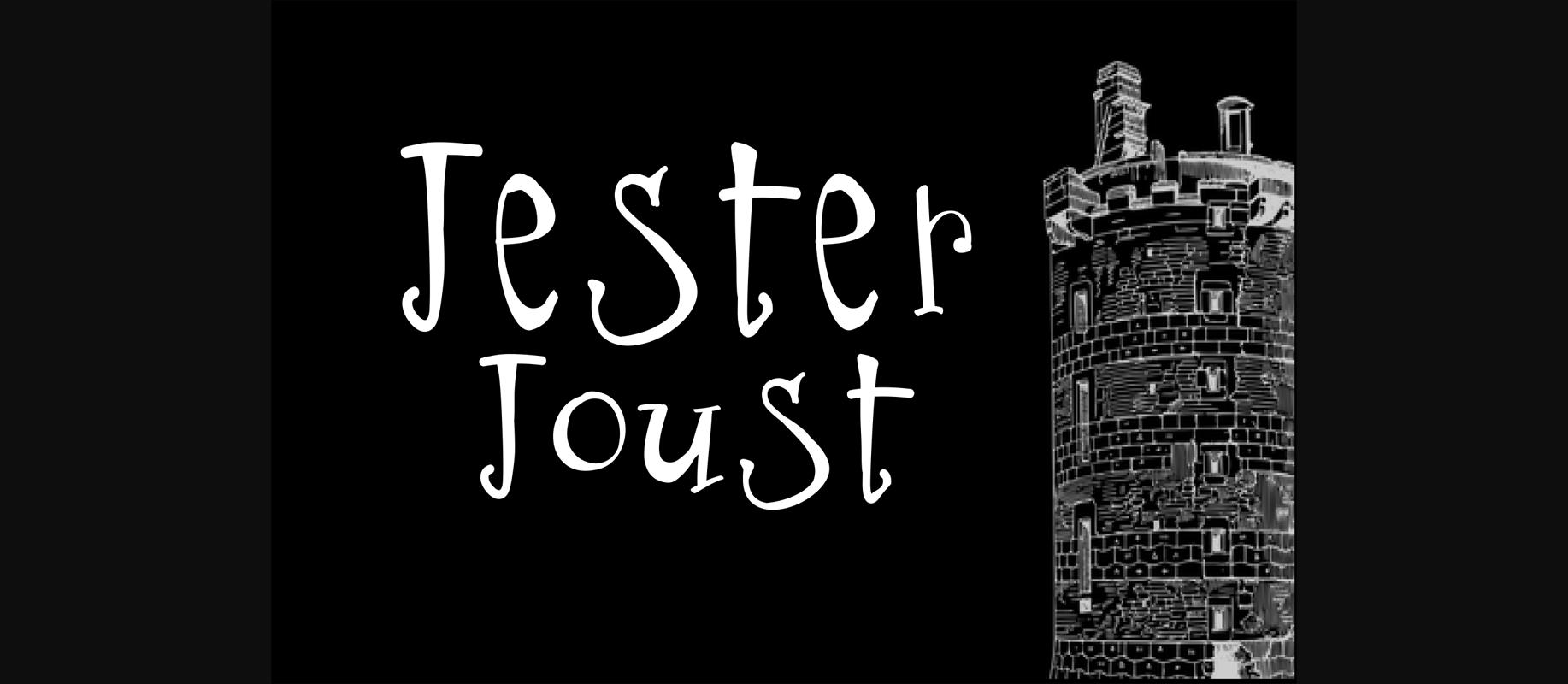
K26 Jester Joust Font
About K26 Jester Joust Font
Jester Joust is a fun, bouncy display font that is perfect for light-hearted designs. This font works well in children’s theme displays, and can add a whimsical touch to all your work.